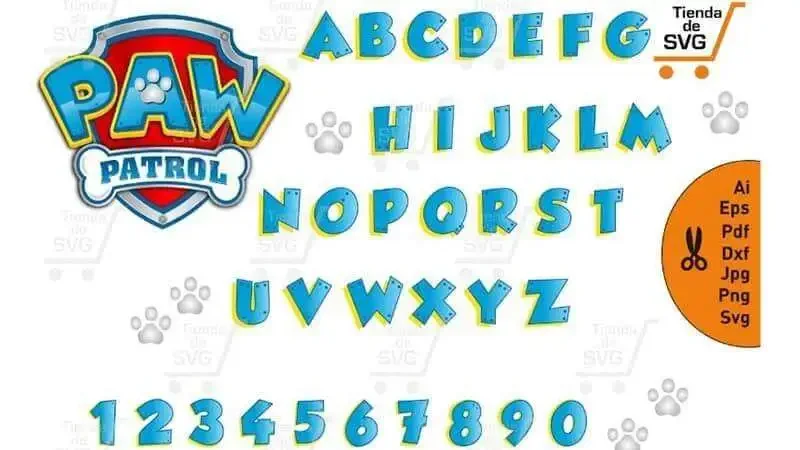
Paw Patrol Font brings the same playful energy to your designs as the beloved animated series does to screens. Inspired by the show's bold and colorful logo, this Font mimics the sturdy slab-serif style of Aachen Bold, giving it a strong, fun-loving vibe that’s perfect for kids’ projects. Whether you’re making birthday invites, party banners, or school crafts, this typeface adds instant personality and a whole lot of charm.
It’s not just any font, it’s a nostalgic nod to adventure, teamwork, and wagging tails.
- Designer: Alan Meeks & Colin Brignall (original Aachen Bold)
- Popularized: 2013, with the launch of Paw Patrol on Nickelodeon
- Style: Bold slab-serif; display-friendly with wide strokes and tight spacing
- Inspired by the iconic Paw Patrol logo typography
- Bold, easy-to-read letterforms are perfect for kids and signage
- Great for display text, titles, posters, or digital banners
- Some versions include paw-print icons or custom “PAW” letter art
- Supports basic punctuation and standard Latin characters
This Font shines in fun, playful settings. Use it for birthday invites, kids' party banners, event posters, or themed classroom materials. Because it's thick and bold, it pairs nicely with clean sans-serifs like Montserrat or rounded fonts like Comic Neue that keep the overall tone light and friendly.